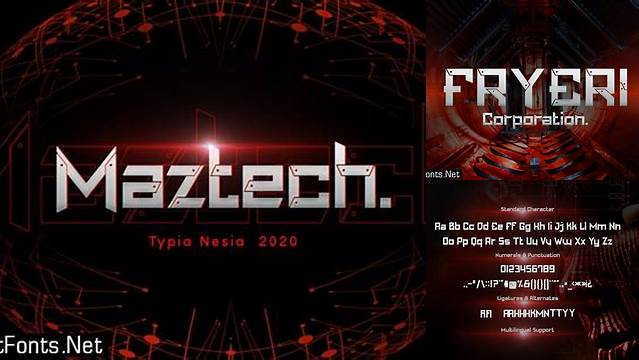
Hey guys! Are you looking to give your projects a futuristic, military-tech vibe? Then you're in the right place! We're diving deep into the world of Maztech military technology fonts and how you can snag them for free. This font style is perfect for adding a touch of cutting-edge sophistication to your designs, whether it's for a video game, a movie poster, or even just a cool presentation. So, buckle up and let's explore everything you need to know about this awesome font!
1. What is Maztech Font?
So, what exactly is Maztech font? Well, Maztech fonts are generally characterized by their sharp, angular lines and futuristic design elements. Think of the kinds of fonts you might see in a sci-fi movie or a high-tech military interface. They often incorporate geometric shapes and a sense of dynamism, making them ideal for projects that need to convey a sense of innovation and power. Using a Maztech military technology font can instantly elevate your design, giving it a sleek and modern feel that grabs attention. Whether you're designing a website, a logo, or even just some eye-catching graphics for social media, this type of font can be a total game-changer. Imagine your text looking like it's straight out of a cutting-edge military operation manual – that's the kind of impact Maztech fonts can have. And the best part? You can often find them for free download, allowing you to add this high-tech touch without breaking the bank. It's all about making your content stand out with a professional, futuristic flair. Let's dive deeper into why this font style is so popular and how you can use it effectively in your projects.
2. Key Characteristics of Military Technology Fonts
Alright, let's break down what makes military technology fonts so distinctive. First off, they're all about that sharp, clean look. Think precise angles, strong lines, and a generally geometric feel. These fonts often have a monospace or semi-monospace design, meaning each character takes up the same amount of horizontal space, giving them a very technical and uniform appearance. This uniformity is key to their association with technology and the military. Another common characteristic is a bold and assertive presence. Military tech fonts are designed to command attention, so they often feature thick strokes and a strong visual impact. This makes them perfect for headings, titles, and anywhere you need to make a statement. Additionally, you'll often find these fonts incorporating futuristic elements like cutouts, stencil designs, or subtle digital-inspired effects. This adds to their high-tech vibe and makes them suitable for a wide range of projects, from video game interfaces to sci-fi book covers. In essence, military technology fonts are a blend of precision, strength, and innovation. They communicate a sense of cutting-edge technology and unwavering resolve, making them a fantastic choice for any project that needs to project a sense of authority and modernity. When you're choosing a font, keep these characteristics in mind to ensure you're getting that true military tech aesthetic.
6. Using Maztech Font in Graphic Design
So, you've got your Maztech font installed and ready to go – awesome! Now, let's talk about how to actually use it effectively in graphic design. This font style is super versatile, but there are a few key things to keep in mind to make the most of its unique aesthetic. First off, Maztech fonts are fantastic for headlines and titles. Their bold, futuristic look instantly grabs attention and sets a strong tone. Think about using them for posters, banners, or even website headers. The clean, sharp lines of a military technology font can make your text look like it's straight out of a sci-fi movie, adding a touch of high-tech flair to your design. When it comes to body text, though, you might want to use Maztech fonts sparingly. While they look amazing in short bursts, they can be a bit difficult to read in large blocks of text due to their stylized nature. Instead, consider pairing them with a simpler, more legible font for your main content. This will create a nice visual contrast and ensure that your message is clear. Think of Maztech fonts as the star of the show, and your body text as the supporting cast. Another great use for Maztech fonts is in logos and branding. Their distinctive look can help your brand stand out and convey a sense of innovation and modernity. Whether you're designing a logo for a tech company, a gaming brand, or anything in between, a military-inspired font can add a unique edge. Experiment with different sizes, weights, and colors to see what works best for your project. And remember, guys, less is often more. Don't overuse the font, or it might lose its impact. Use it strategically to highlight key elements and create a cohesive, visually appealing design. With a little practice, you'll be rocking the Maztech font in no time!
7. Pairing Maztech Font with Other Fonts
Okay, so you're digging the Maztech font, but you might be wondering how to pair it with other fonts to create a balanced and visually appealing design. Font pairing is a bit of an art, but don't worry, guys, we'll break it down. The key is to create contrast while maintaining harmony. Since Maztech fonts are typically bold and futuristic, you'll want to pair them with something that complements their style without overpowering them. One classic approach is to pair a Maztech military technology font with a clean, sans-serif font for body text. Think along the lines of Open Sans, Montserrat, or Lato. These fonts are highly legible and provide a nice contrast to the more stylized Maztech font, making your headlines pop while keeping your body text easy to read. Another option is to pair Maztech with a geometric sans-serif font. These fonts share a similar clean and modern aesthetic, but they tend to be less bold and assertive, creating a subtle contrast. Fonts like Futura or Avenir can work really well in this case. If you're feeling a bit more adventurous, you could even try pairing Maztech with a simple serif font. This can create a really interesting juxtaposition of classic and futuristic styles. Look for serifs that are clean and modern, rather than overly ornate. A font like Roboto Serif or Playfair Display could be a good choice, but you'll want to experiment to see what works best for your specific project. The main thing to remember is balance. You want your font pairings to complement each other, not compete. A good rule of thumb is to choose one font for headlines and another for body text. This will create a clear visual hierarchy and make your design more cohesive. And don't be afraid to try out different combinations, guys! Font pairing is all about experimentation, so have fun and see what you can create!
8. Maztech Font in Logo Design
Let's talk logos! Using a Maztech font in logo design can be a killer way to give your brand a modern, tech-forward vibe. These fonts, with their sharp angles and futuristic feel, are perfect for companies that want to project innovation and cutting-edge technology. Think about it: a logo is the face of your brand, and choosing the right font can make a huge difference in how your brand is perceived. A military technology font can instantly convey strength, precision, and a sense of the future, making it an excellent choice for tech startups, gaming companies, or any business that wants to stand out in a competitive market. When using Maztech fonts for logos, simplicity is key. You don't want to overcrowd your design with too much text or too many elements. Focus on creating a clean, memorable logo that is easily recognizable. The Maztech font itself is already quite striking, so you don't need to overdo it with other design elements. Consider using just the initials of your company name in the logo, or a short, impactful word. This can create a strong visual impact without being overwhelming. Another important thing to think about is scalability. Your logo needs to look good whether it's printed on a business card or displayed on a giant billboard. Choose a Maztech font that is legible at both small and large sizes. You might need to make slight adjustments to the font or the spacing between letters to ensure it looks perfect in every context. Color also plays a crucial role in logo design. Pair your Maztech font with colors that complement its futuristic aesthetic, such as blues, grays, and blacks. You could also use neon colors or metallic accents to add a touch of high-tech flair. And remember, guys, test your logo on different backgrounds and in different formats to make sure it looks great everywhere. Creating a killer logo is all about attention to detail, so take your time and experiment until you've nailed it!
9. Creating a Futuristic Vibe with Maztech Fonts
If you're aiming for a futuristic vibe in your designs, Maztech fonts are your secret weapon. These fonts just ooze that high-tech, sci-fi feel, making them perfect for a wide range of projects. Think about how movies and video games use fonts to create atmosphere – military technology fonts are often used to evoke a sense of advanced technology and cutting-edge innovation. When you're using Maztech fonts to create a futuristic aesthetic, it's all about context and execution. The font itself is a great starting point, but you also need to consider the overall design. Think about using a dark color palette with pops of neon or metallic colors. This combination can instantly give your design a sleek, futuristic look. Incorporating geometric shapes and patterns can also enhance the futuristic feel. Think about adding lines, circles, or other geometric elements to your design to complement the sharp angles and clean lines of the Maztech font. Another technique is to play with negative space. Using plenty of white space around your text can make it stand out and give your design a modern, minimalist feel. This is especially effective when paired with a bold Maztech font. Typography is key, of course, but don't forget about imagery. Using futuristic-looking images or illustrations can really tie your design together and reinforce the overall vibe. Think about incorporating abstract patterns, circuit boards, or even images of robots or spaceships. And remember, guys, consistency is crucial. Make sure your font, colors, and imagery all work together to create a cohesive futuristic design. Don't be afraid to experiment and try new things, but always keep the overall aesthetic in mind. With a little creativity, you can use Maztech fonts to create designs that look like they're straight out of the future!
10. Using Maztech Font in Video Games
Alright gamers, let's talk about using Maztech fonts in video games! If you're developing a sci-fi, military, or futuristic game, a military technology font can be an absolute game-changer (pun intended!). The right font can significantly enhance the user interface, dialogue boxes, and overall atmosphere of your game. When it comes to video games, readability is paramount. You want players to be able to easily read text on the screen, even during fast-paced gameplay. That's why choosing the right font is so crucial. Maztech fonts, with their sharp lines and geometric shapes, can be perfect for creating a high-tech, futuristic feel, but you need to use them strategically. For menus, heads-up displays (HUDs), and other on-screen text, a Maztech font can add a touch of sophistication and immersion. Think about how many sci-fi games use similar fonts to convey a sense of advanced technology and military precision. However, you'll want to make sure the font is still easy to read, especially for critical information like health bars, ammo counts, and mission objectives. For dialogue boxes and subtitles, you might want to use a slightly more legible font, or a lighter weight of the Maztech font. You want players to be able to follow the story without straining their eyes. Pairing Maztech with a cleaner sans-serif font for dialogue can be a great solution. Another thing to consider is the overall visual style of your game. The font you choose should complement the graphics and artwork. If your game has a gritty, realistic aesthetic, a Maztech font with a slightly distressed or textured look might be a good fit. If your game is more stylized and colorful, you can experiment with bolder, more futuristic Maztech fonts. And remember, guys, test your font choices on different screen sizes and resolutions to make sure they look good on all devices. Video game design is all about the details, and choosing the right font can make a huge difference in the overall player experience!